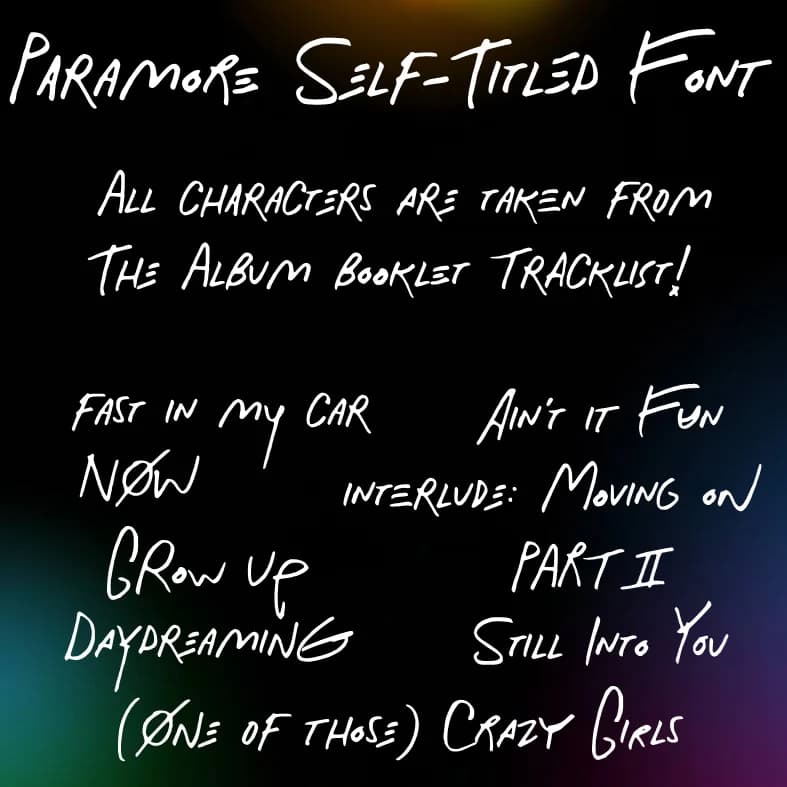
About Paramore Self Font
Paramore Self by Xpeehdroox is an energetic handwritten script with fluid, dynamic letterforms that convey authentic artistic expression. The expressive strokes create an organic quality that feels both contemporary and genuinely hand-lettered, making it a compelling choice for brands and creators who want to communicate personality, movement, and raw artistic vision. This script works exceptionally well for album covers and music-related branding, custom band merchandise labeling, indie publication headers, artistic event posters, and hand-drawn style social media campaigns. Whether you're designing album artwork, creating vintage-inspired vinyl record sleeves, developing independent comic book lettering, building cohesive visual identities for creative agencies, or crafting personalized stationery suites, this typeface delivers character without sacrificing legibility. The font's spirited appearance translates seamlessly across both digital displays and print applications, maintaining its artistic integrity whether scaled up for dramatic signage or down for small product tags and labels. Its compatibility with major design platforms means you can integrate Paramore Self into virtually any creative workflow, from tattoo design concepts to custom merchandise artwork. The expressive letterforms work particularly well in projects where authenticity and a personal creative touch are essential assets, bringing warmth and individuality to everything from indie brand identity systems to DIY enthusiast projects. Discover how Paramore Self can bring artistic energy to your next project, find it now on Creative Fabrica.
Paramore Self Font is a script font that shines as a display or heading face. Pair it with a clean sans-serif or serif font for body text β the contrast creates a clear hierarchy while the two styles stay balanced and easy to read.
Paramore Self Font